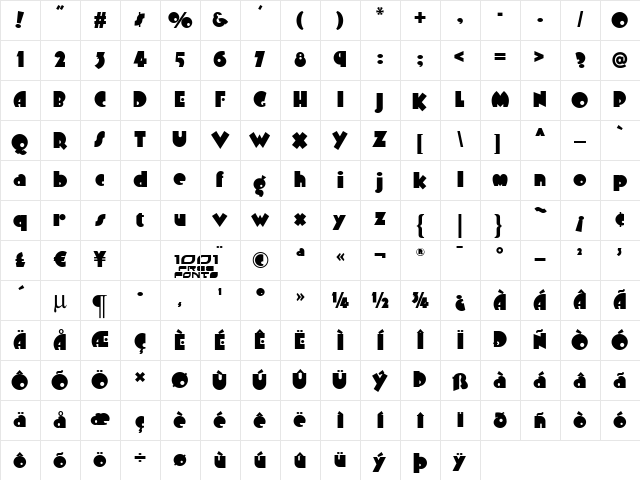
Arbuckle Remix NF Regular
Foundry: Nick's Fonts
Designer: Nick Curtis
Design Context for Arbuckle Remix NF
Arbuckle Remix NF is a composed and adaptable typeface that performs quietly and consistently across a wide range of design contexts.